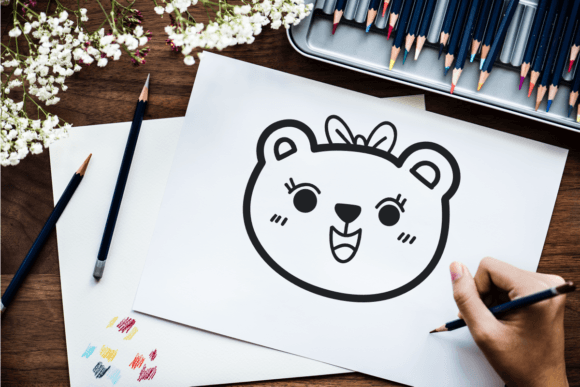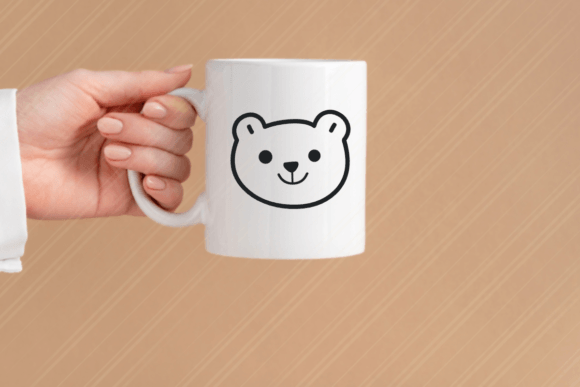
Bear Font: The Cute and Useful Hand-Drawn Dingbats Font for Designers and Crafters
Are you tired of using the same old fonts for your designs? Look no further! Introducing Bear Font, a cute and useful hand-drawn dingbats font that’s perfect for adding a touch of personality to your creative projects. Whether you’re a designer, crafter, or simply someone who loves to get creative, Bear Font is a must-have addition to your font collection.
What is Bear Font?
Bear Font is a hand-drawn dingbats font that’s designed to be both adorable and versatile. The font features a range of cute bear-themed illustrations, including bears, paws, and other fun designs. Each character is carefully crafted to be unique and visually appealing, making it perfect for adding a personal touch to your designs.
What Can I Use Bear Font For?
The possibilities are endless with Bear Font! This adorable font is perfect for a wide range of creative projects, including:
- Planners: Add a touch of personality to your planners with Bear Font. Use it to create custom headers, footers, and icons that will make your planners stand out.
- Crafting: Whether you’re a paper crafter, card maker, or scrapbooker, Bear Font is a great addition to your crafting arsenal. Use it to create custom titles, labels, and embellishments for your projects.
- Digital Designs: Bear Font is perfect for digital designers who want to add a personal touch to their designs. Use it to create custom graphics, icons, and illustrations for your clients or personal projects.
- Presentations: Make your presentations more engaging with Bear Font. Use it to create custom headers, footers, and bullet points that will add a touch of personality to your slides.
- Worksheets: Add a fun touch to your worksheets with Bear Font. Use it to create custom titles, labels, and illustrations that will make your worksheets more engaging for kids and adults alike.
- Greeting Cards: Create custom greeting cards with Bear Font. Use it to create beautiful, one-of-a-kind cards for special occasions.
Why Should I Use Bear Font?
There are many reasons why Bear Font is a great choice for designers and crafters. Here are just a few:
- Cute and Adorable: Bear Font is incredibly cute and adorable, making it perfect for adding a touch of personality to your designs.
- Versatile: Bear Font is versatile and can be used for a wide range of creative projects, from planners and crafting to digital designs and presentations.
- Unique: Bear Font is a unique font that’s sure to make your designs stand out from the crowd.
Tips and Tricks for Using Bear Font
Here are a few tips and tricks for getting the most out of Bear Font:
- Experiment with Different Sizes: Bear Font looks great in a variety of sizes, so don’t be afraid to experiment with different sizes to find the one that works best for your project.
- Combine with Other Fonts: Bear Font pairs well with other fonts, so try combining it with your favorite fonts to create a unique look.
- Use for Headers and Footers: Bear Font is perfect for headers and footers, so try using it to add a touch of personality to your designs.
Bear Font is a cute and useful hand-drawn dingbats font that’s perfect for designers and crafters. With its adorable bear-themed illustrations and versatile design, Bear Font is sure to become a favorite in your font collection. Whether you’re creating planners, crafting, or digital designs, Bear Font is a great choice for adding a touch of personality to your projects. So why wait? Download Bear Font today and start creating amazing designs!